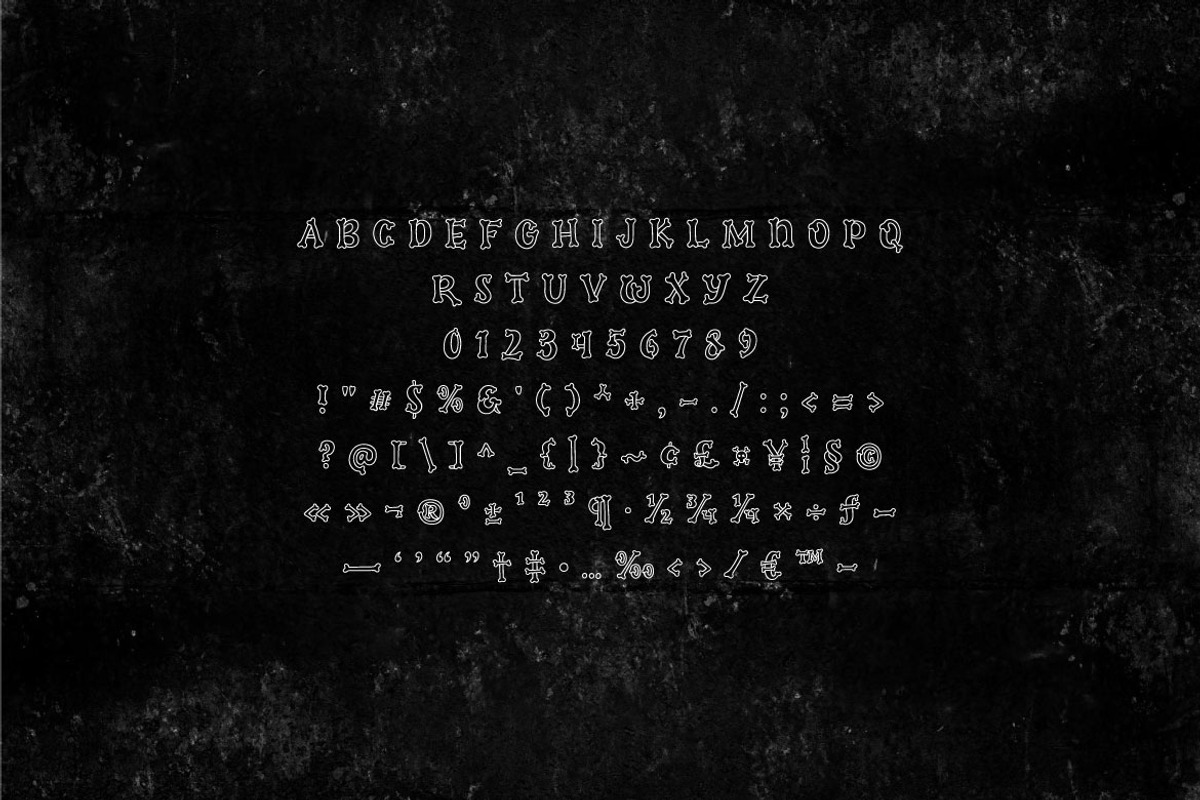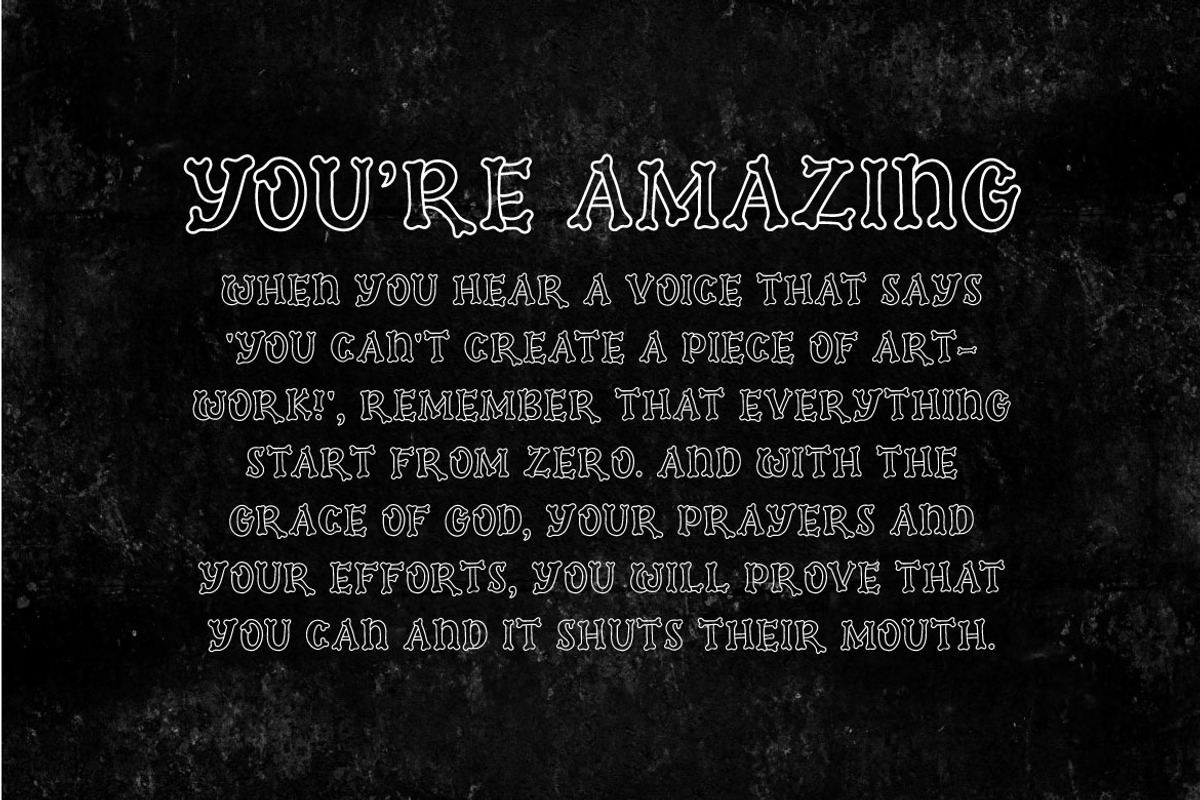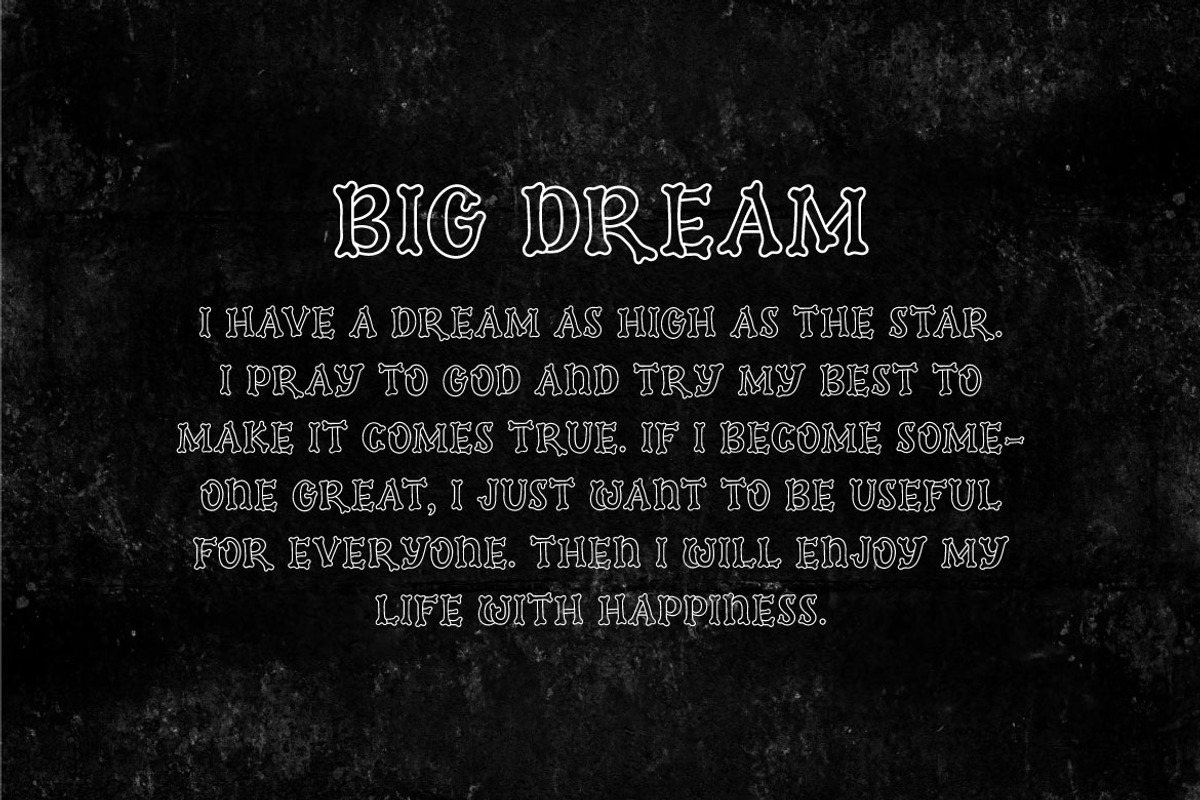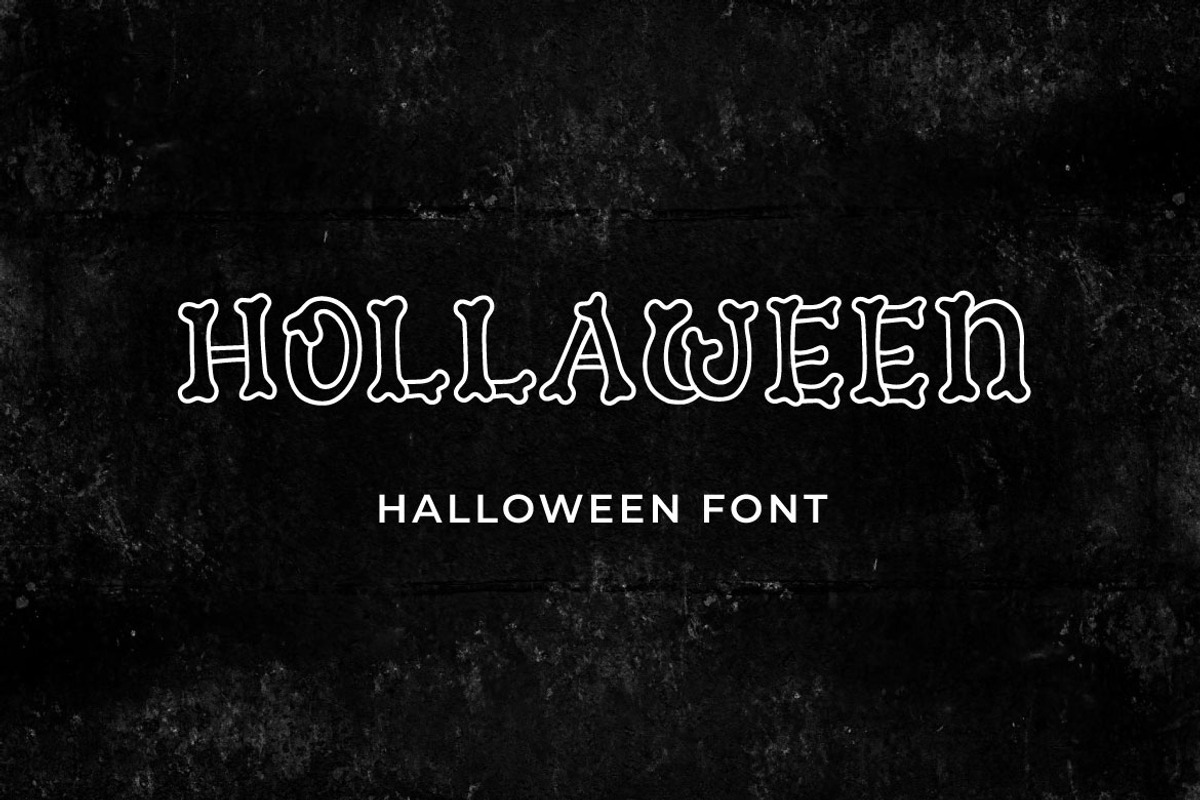
Hollaween - Halloween display font
Feel the scariness of Hollaween, a Halloween display font created by us. This font is suitable for Halloween event, comic, flyer, poster, banner, movie title, book cover, card, merchandise, etc. Try this font and ready to scream!